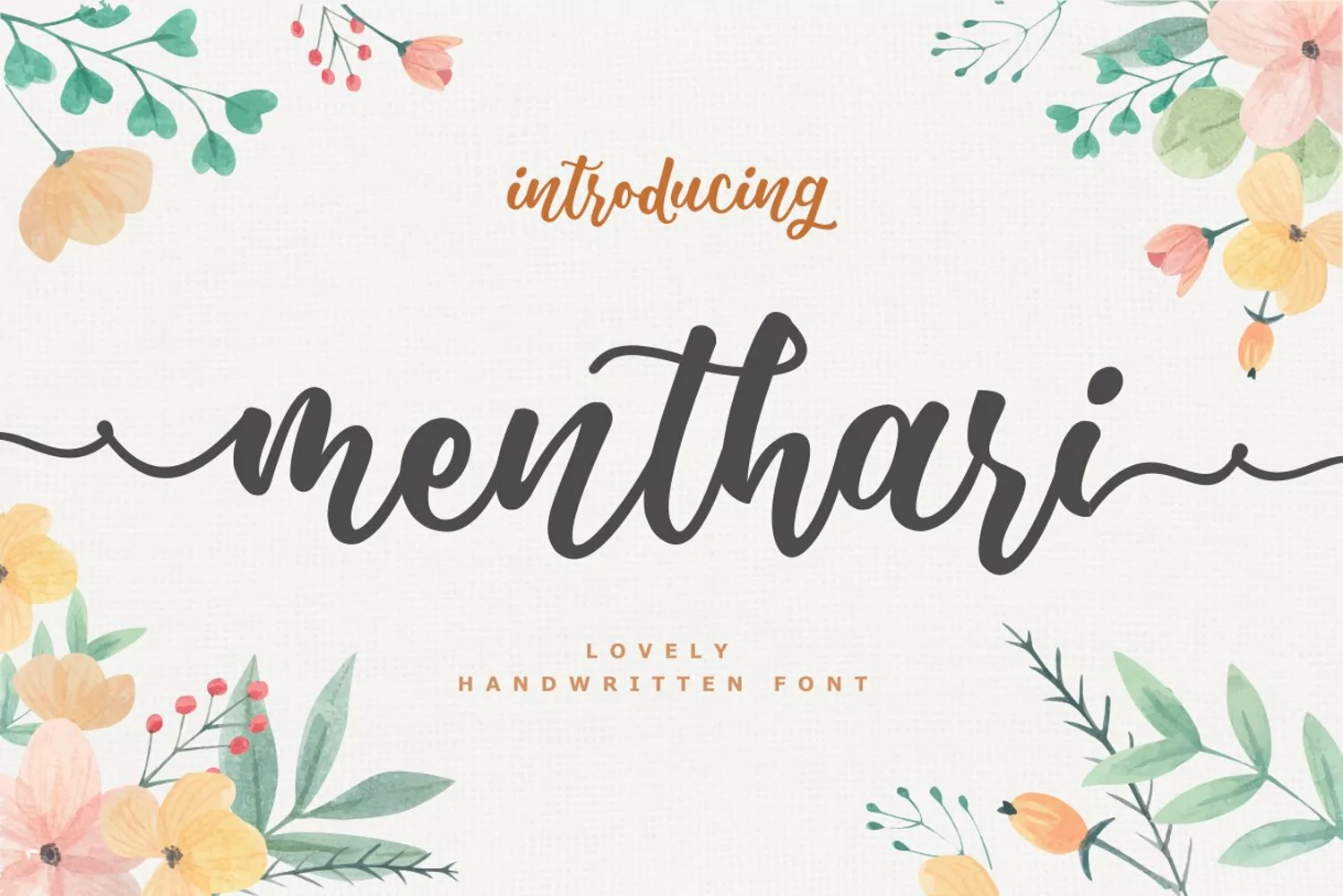
Menthari
Lovely Handwritten Font
This font so girly, and so beauty, perfect for Lettering project like cutting silhouette, quotes t-shirt design, mug, advertisements, wedding, cover books, posters, business cards, social media and more.
It completed with numbers and punctuation. Multilingual support, and came with PUA encoded.
I created more than 50 stylistic alternates to make this font very classy and look so beauty.